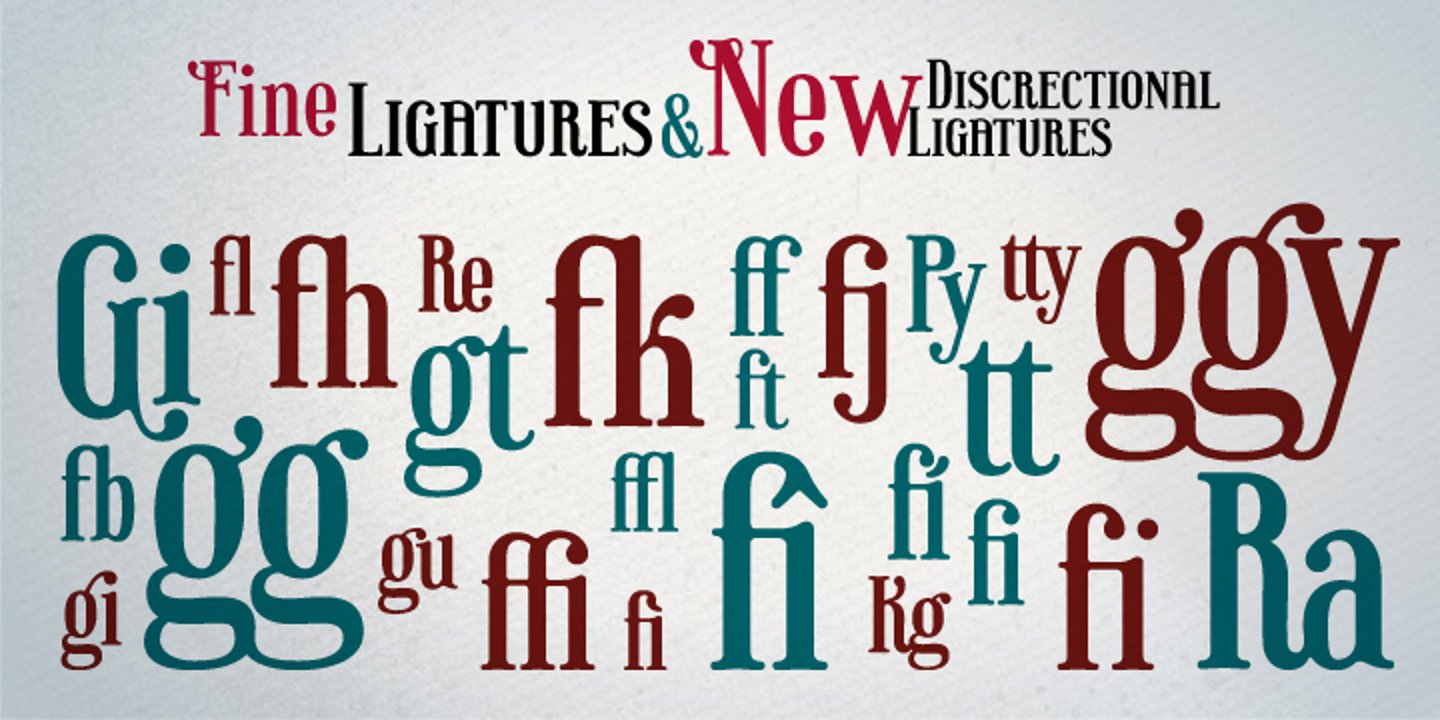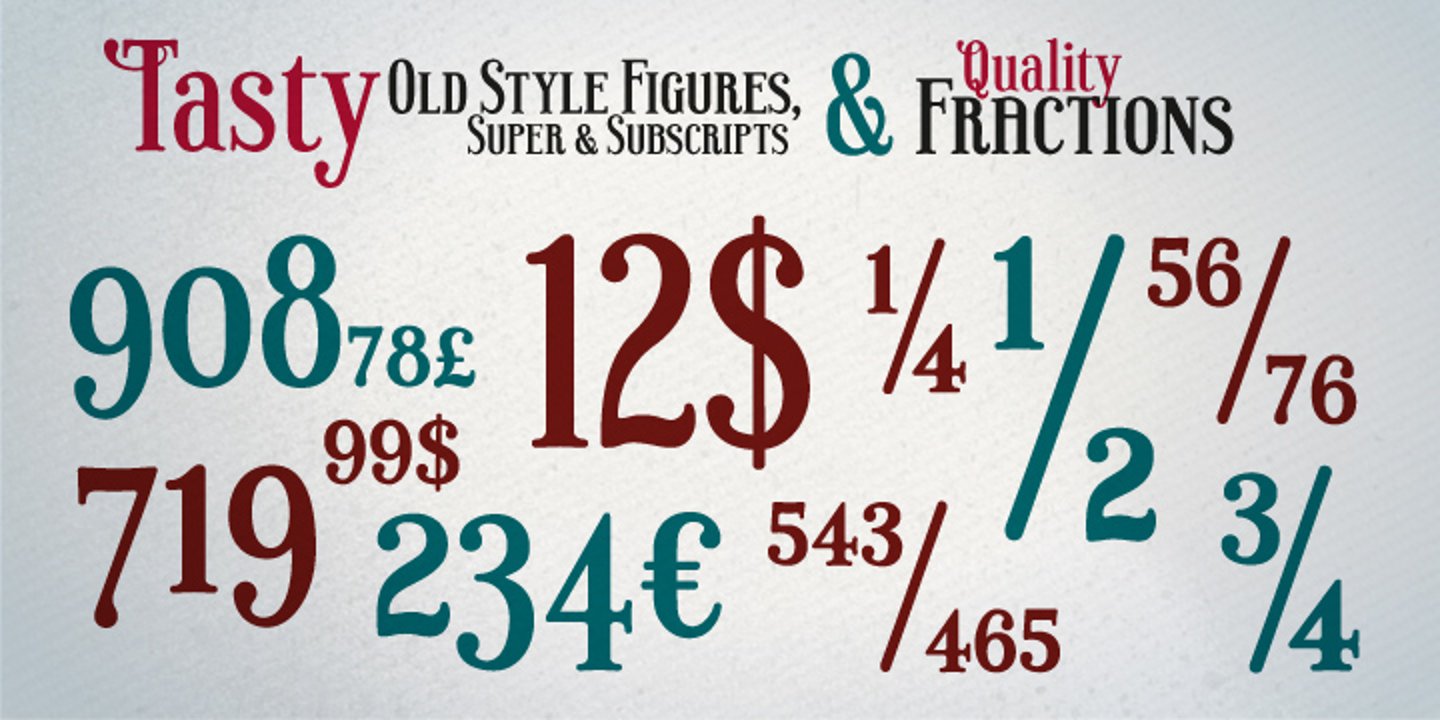
Halfway between nineteenth century display wood letters and the American grotesk sans-serif of the early twentieth, we can find Ultramarina, a display font for use in large body headlines, which show its power of attraction to quality food, the country’s legume, and gentlemen with a mustache and apron.